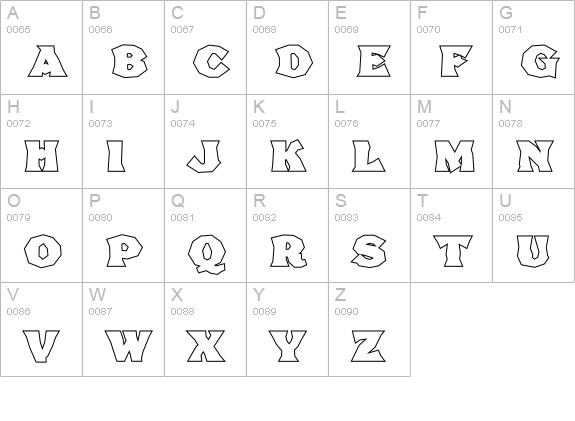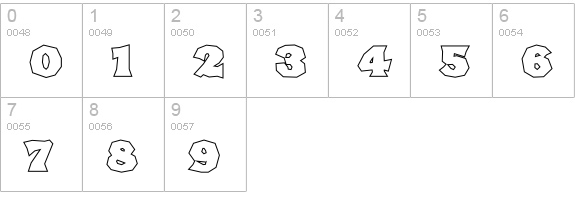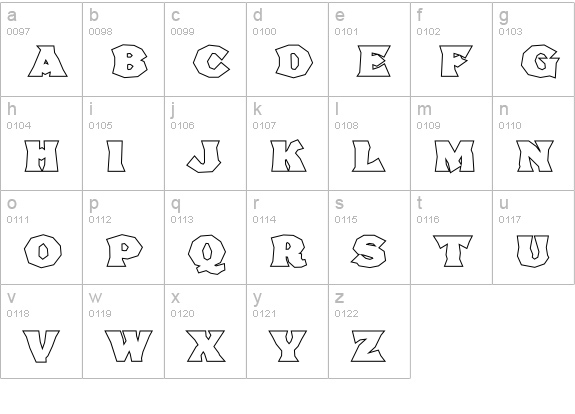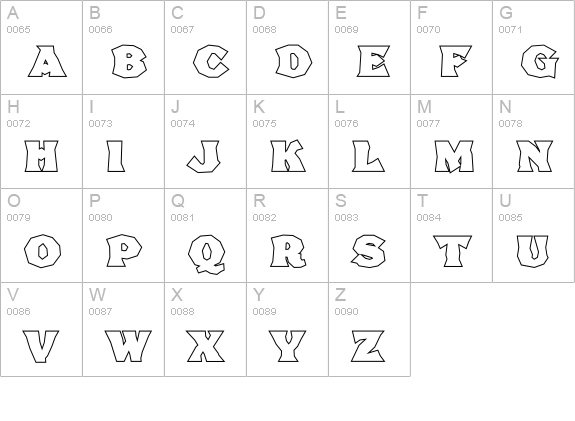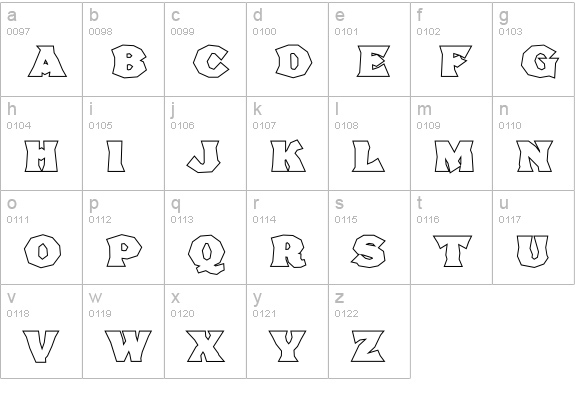
FHA Brokn Gothic BustdCC NC Font Details
FHA Brokn Gothic BustdCC NC is an extraordinary font that effortlessly combines the essence of brokenness and gothic aesthetics. Its unique design captivates the eye with its jagged edges and shattered appearance, making it perfect for projects that require a touch of edginess and unconventional charm. This font dares to break free from the confines of traditional typography, offering a fresh perspective on the art of letterforms. Each character exudes a sense of rebelliousness, as if it has broken free from the constraints of conformity. The result is a typeface that is both striking and captivating, leaving a lasting impression on anyone who encounters it. One of the most remarkable aspects of FHA Brokn Gothic BustdCC NC is its versatility. Whether used for headlines, logos, or body text, this font effortlessly commands attention and adds a touch of intrigue to any design. It is equally suited for modern and vintage-themed projects, as it effortlessly bridges the gap between the past and the present. The best part? FHA Brokn Gothic BustdCC NC is available for free download at FontsMarket.com. This means that designers and creatives alike can freely access this remarkable font and incorporate it into their work without any limitations. Its availability ensures that everyone can experience the boldness and uniqueness of this exceptional typeface. In conclusion, FHA Brokn Gothic BustdCC NC is a font that defies conventions and embraces the beauty of imperfection. Its broken and gothic-inspired design will undoubtedly leave a lasting impression on any design project. Whether you're looking to add a hint of rebellion to your designs or simply want to stand out from the crowd, this font is the perfect choice. Download it for free at FontsMarket.com and unleash your creativity today.